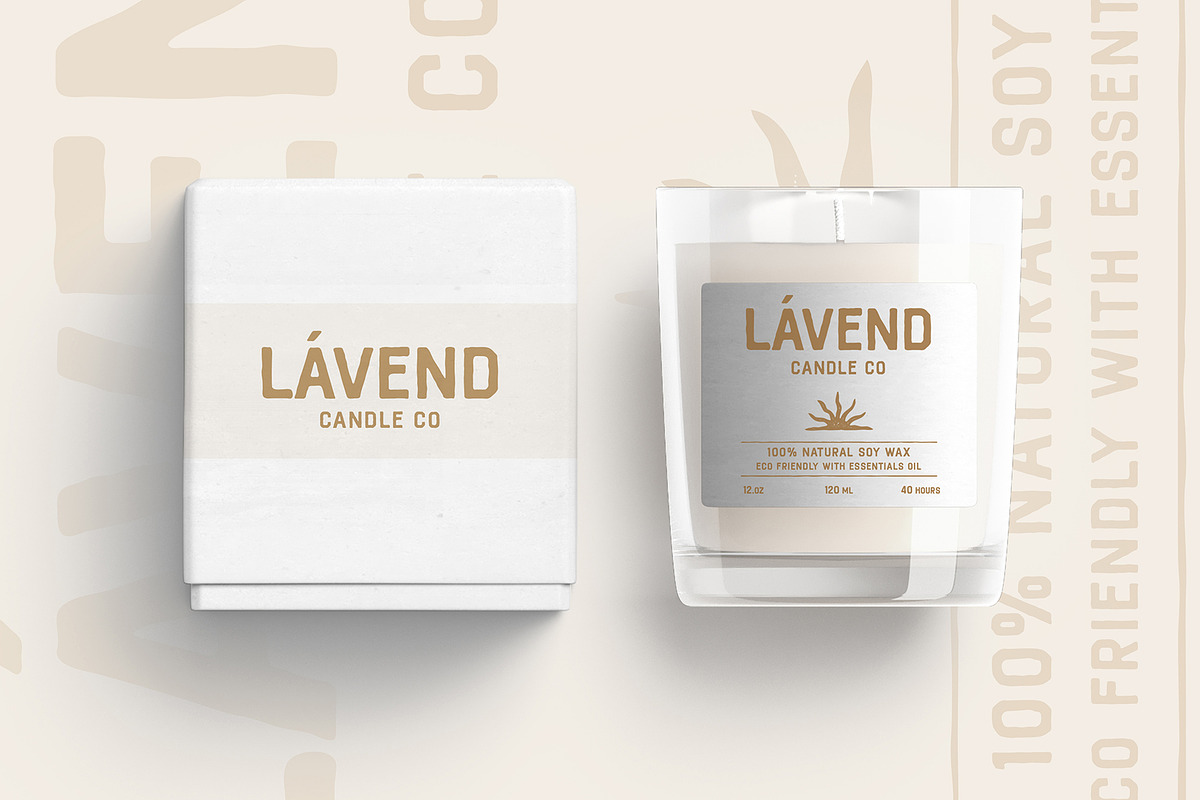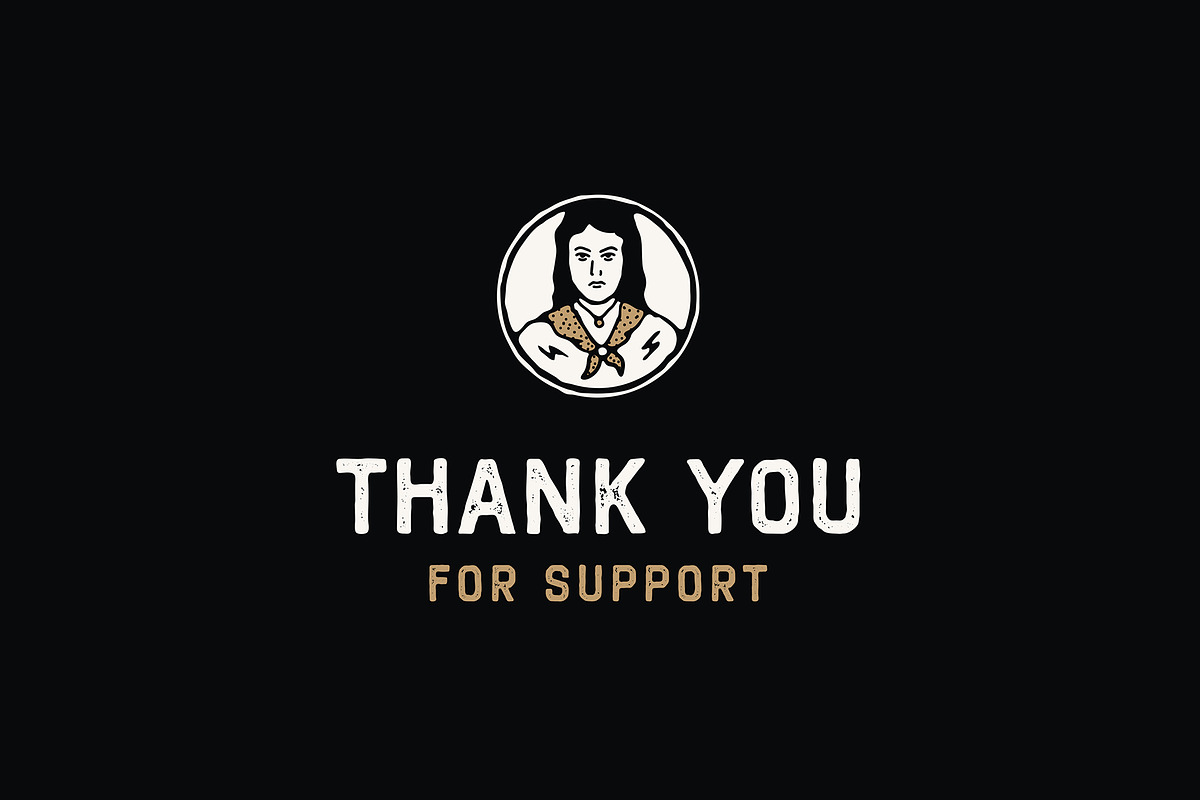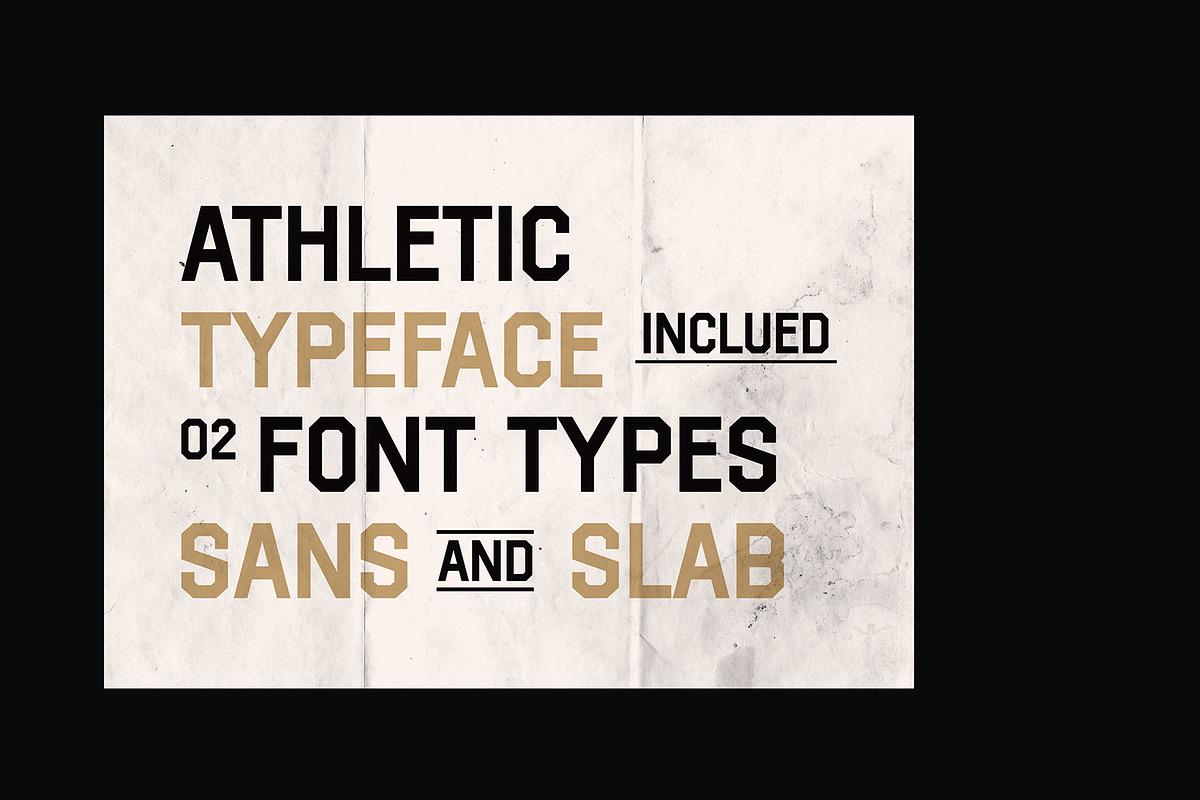
Champsville
Inspired by American Sports Graphic. Champsville Athletic Block Type comes with 2 font versions, Sans and Slab Serif with 4 choices styles: Regular, Rounded, Inked, and Stamp. That will make the design process more flexible and easier with many choices versions. Champsville will bring your project to an authentic vintage feel and unique.